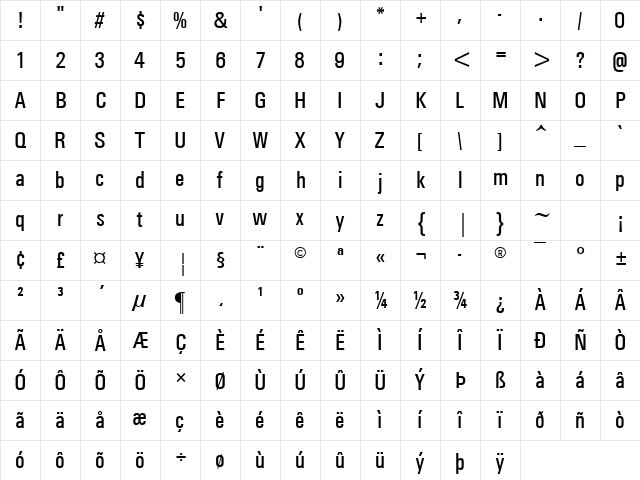
Univers Condensed Medium
Univers Condensed Family
Complete Univers Condensed Medium glyph index. Displaying only characters natively supported by Univers Condensed Medium font.
Design Context for Univers Condensed
Univers Condensed is a composed and adaptable typeface that performs quietly and consistently across a wide range of design contexts. Its narrow stance lets it pack a punch even in space-constrained designs.